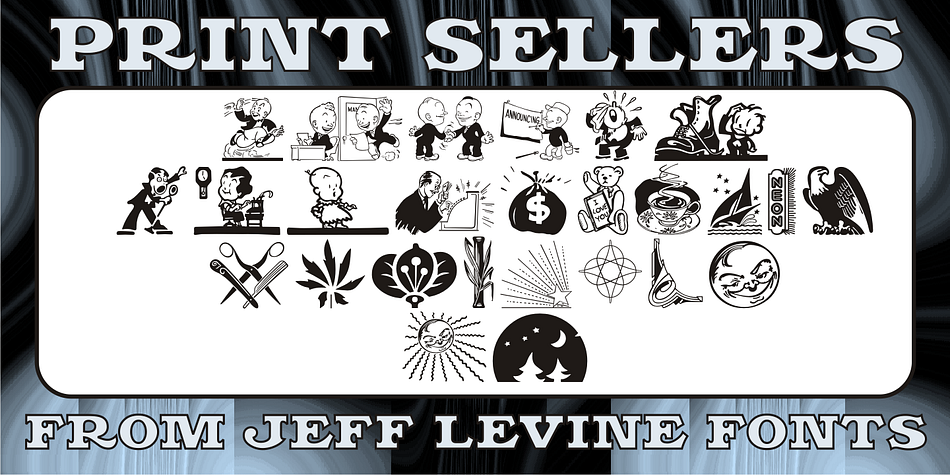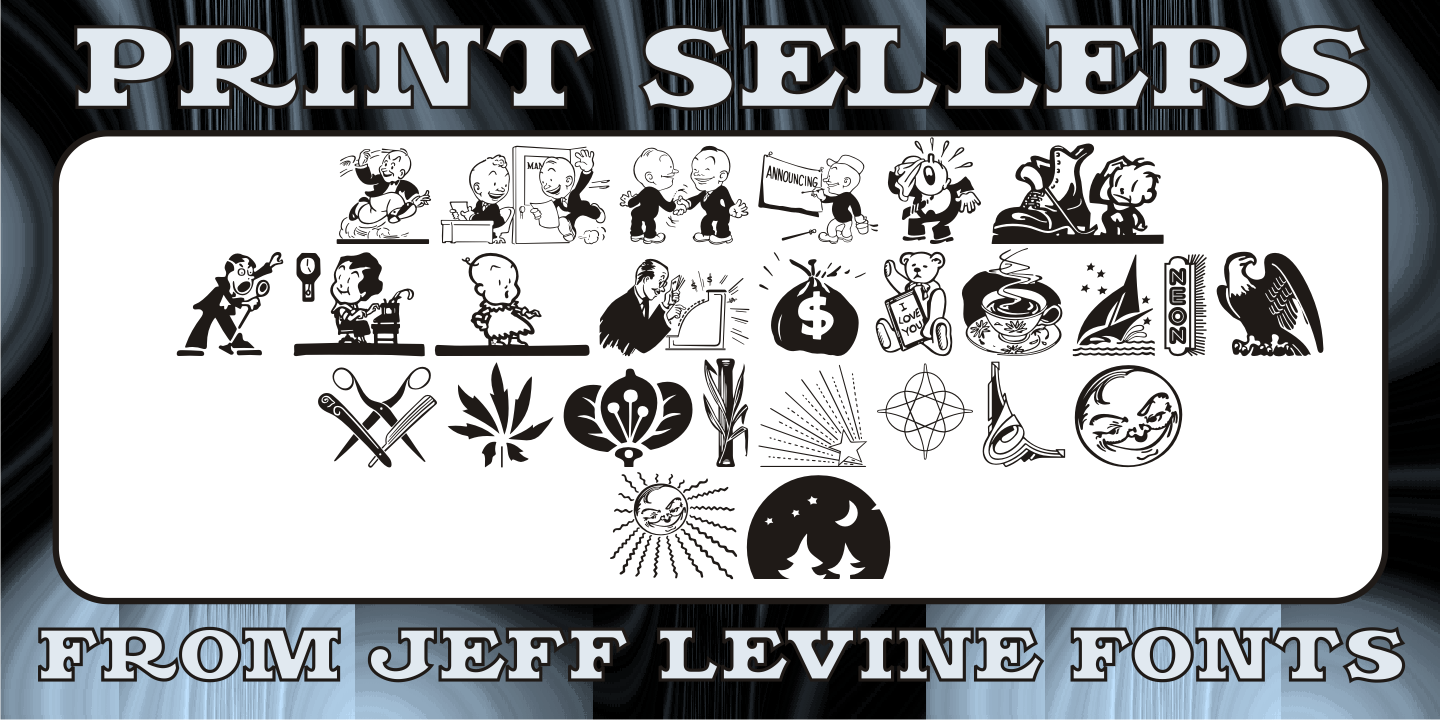
Print Sellers JNL is a dingbat font published by Jeff Levine Fonts.
Another batch of vintage letterpress cartoons, cuts, dingbats and embellishments is offered in Print Sellers JNL.